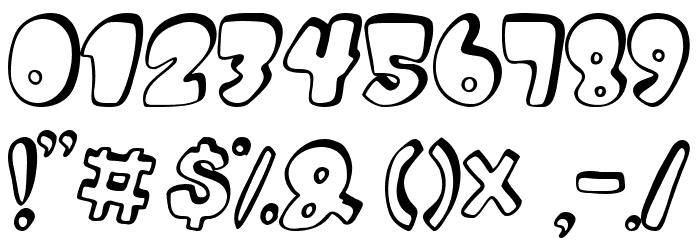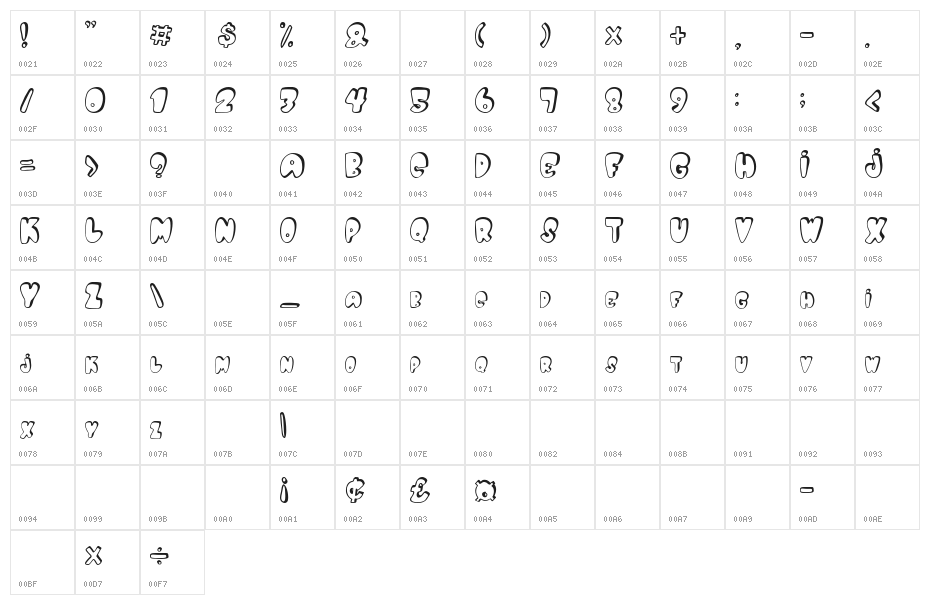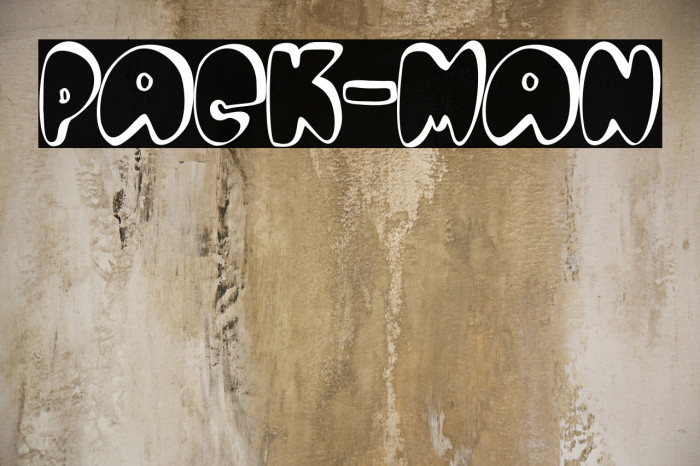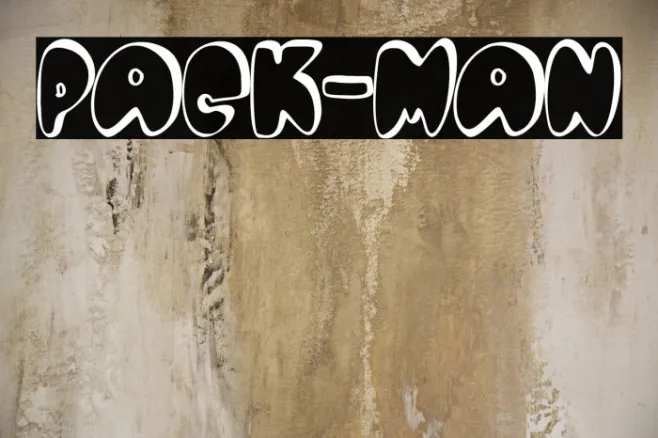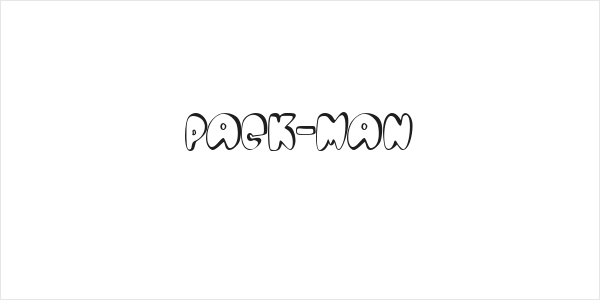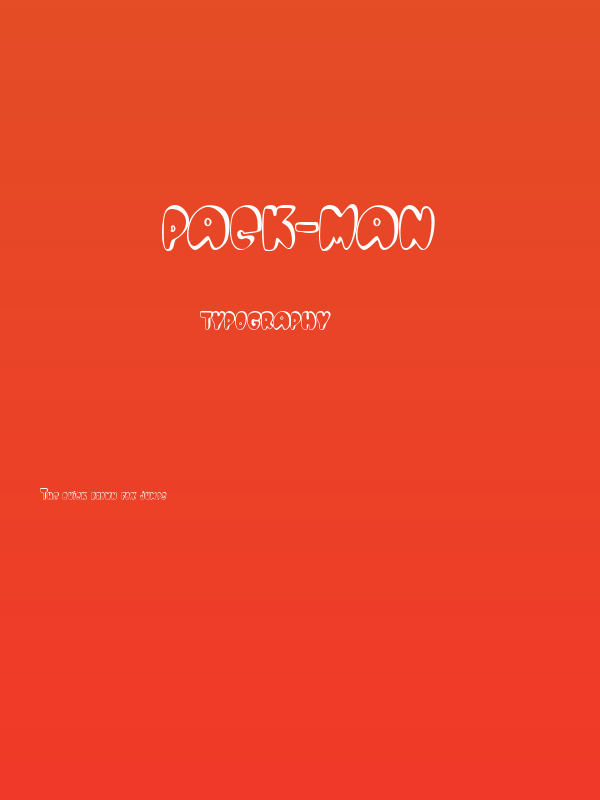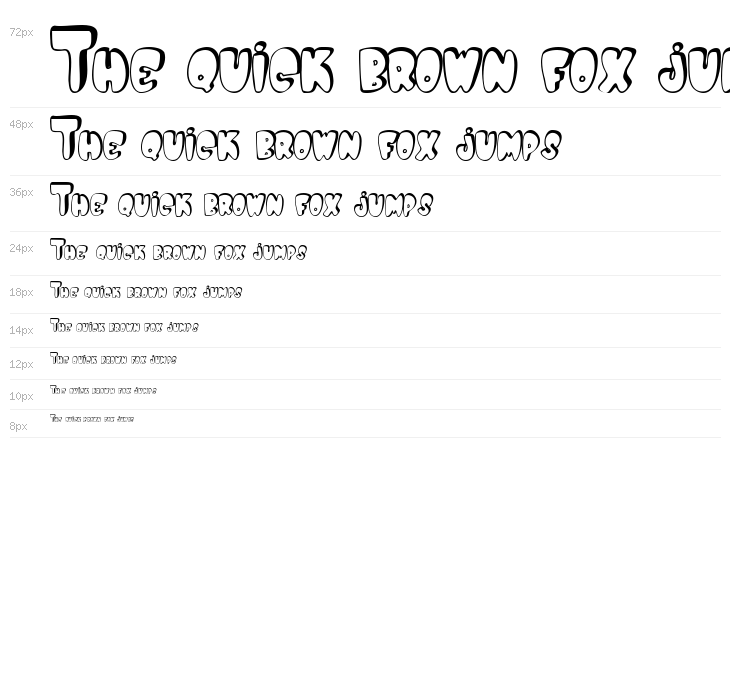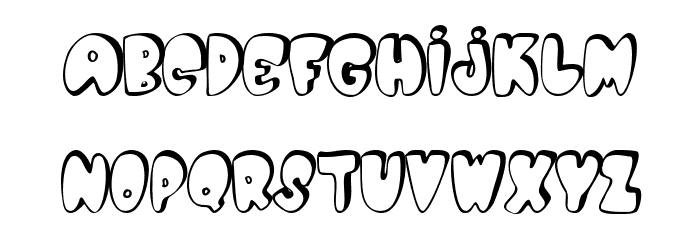
PACK-MAN Font
PACK-MAN Description
This playful and bold font features rounded, bubble-like characters with a thick outline that gives it a cartoonish and fun appearance. The letters are uniformly wide, with a consistent stroke that maintains a sense of whimsy and lightheartedness. The font includes both uppercase and lowercase letters, numerals, and a variety of special characters, all designed in the same bubbly style. Its exaggerated curves and soft edges make it ideal for projects that require a touch of humor and creativity. The font's unique style is reminiscent of retro video game aesthetics, adding a nostalgic yet modern twist to any design.
| Overall Style | Playful, Retro |
| Proposed Projects | Ideal for children's books, comic strips, playful branding, video game graphics, and party invitations. |